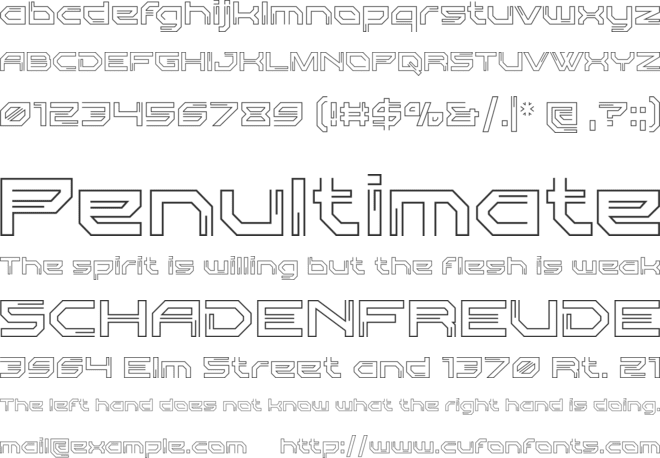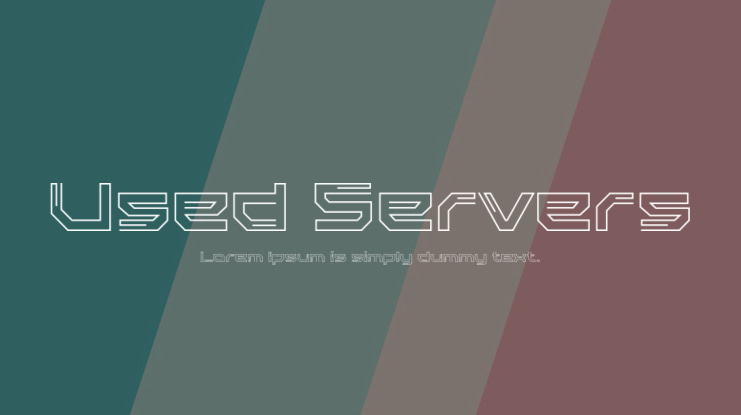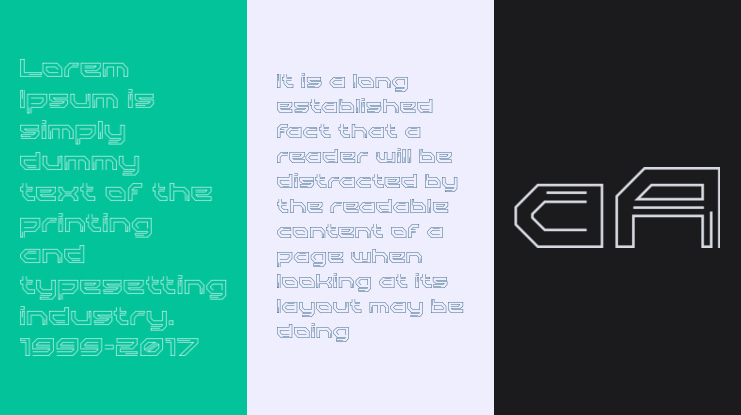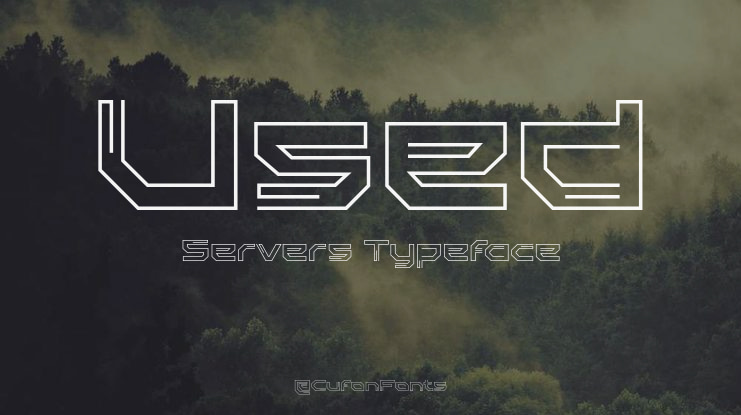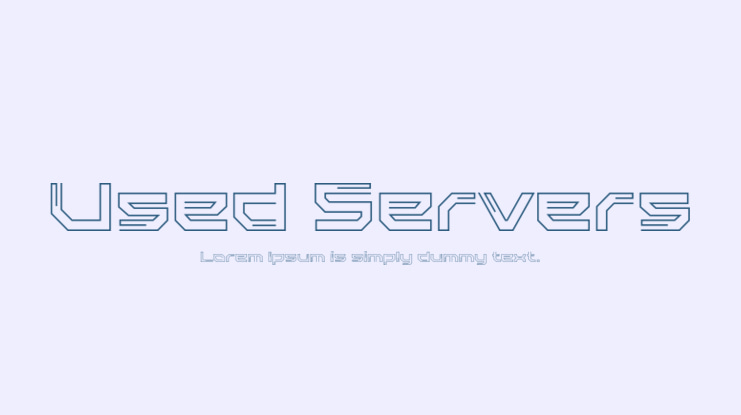
Used Servers Font Family
Used Servers is a retro tech font inspired by the excess server equipment we receive every day. Drawing from the visual styles of the likes of Dell, HP, IBM, Lenovo and Cisco UCS Servers and even old DEC computers.The family includes a standard style with an additional bold weight, suitable for all print uses.We enjoy providing public domain fonts and icons with the tech community for free and commercial use.Founded in 1995, Alta Technologies is the leading buyer & seller of new, used and refurbished servers, data storage and networking equipment in North America.If you do use our font, please considering sharing attribution/credit (although it is never required):https://www.altatechnologies.com